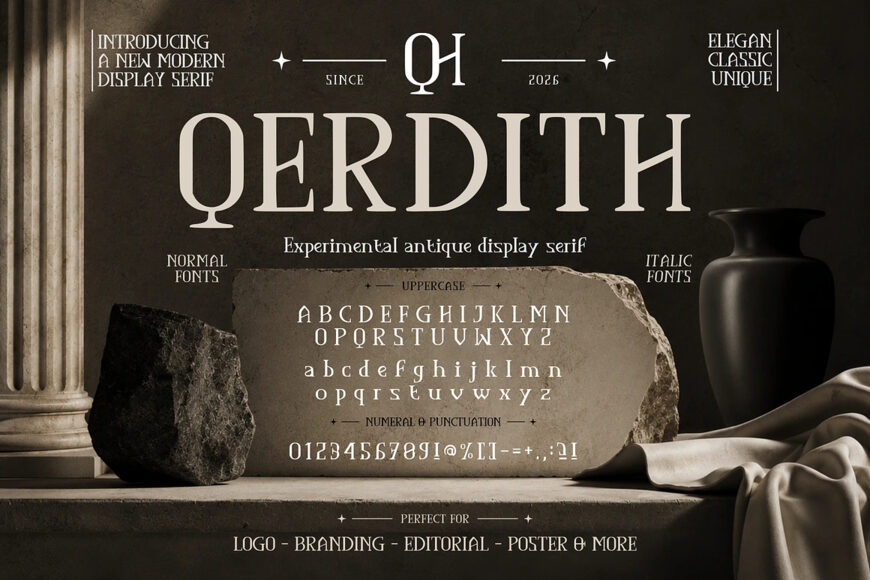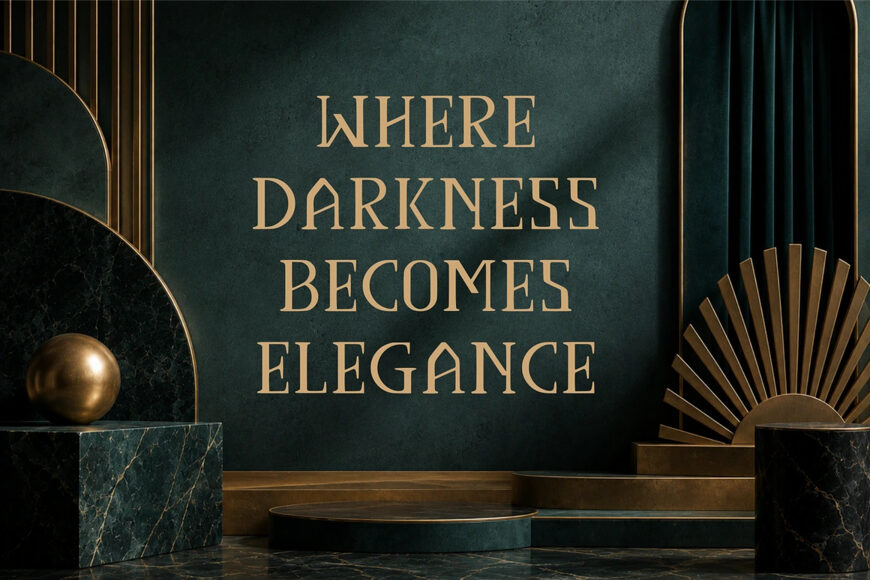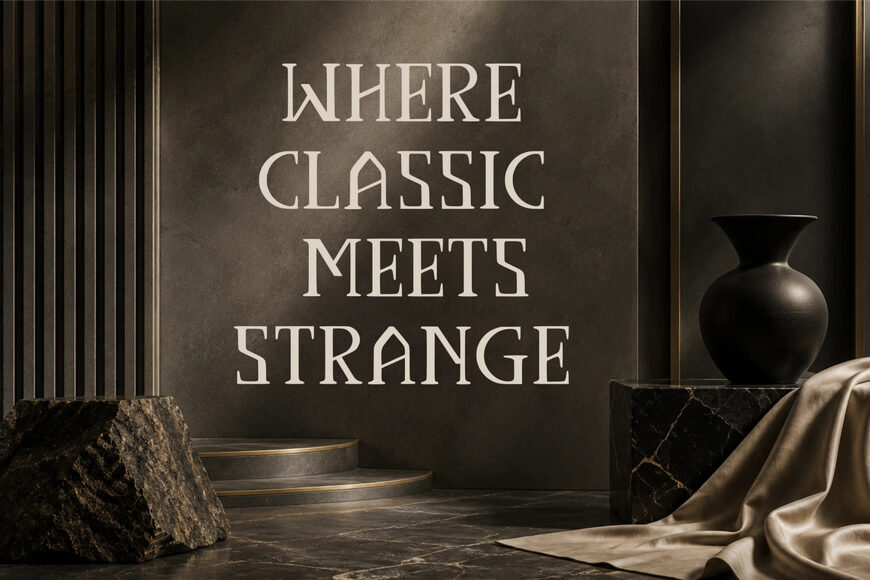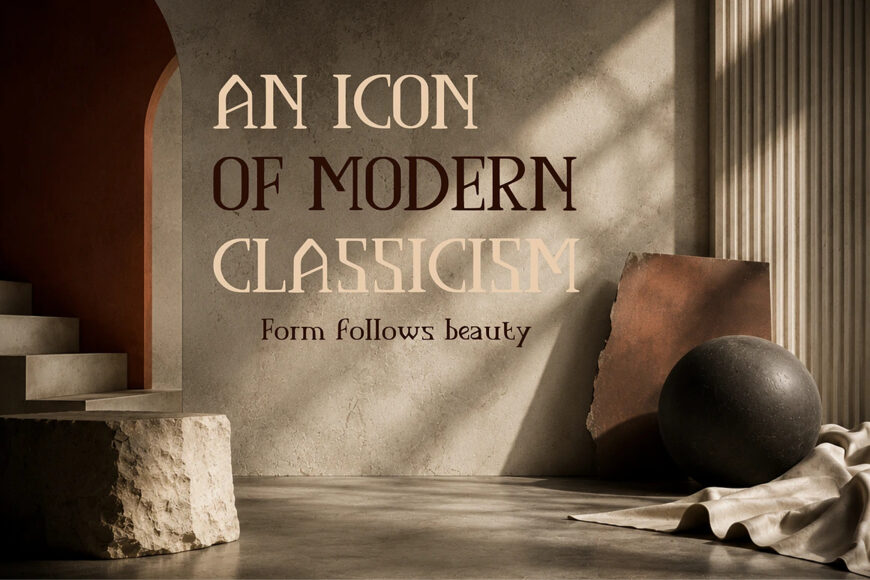
Qerdith is an experimental antique display serif typeface that blends classical elegance with a distinctive contemporary edge. Inspired by vintage typography, architectural forms, and refined editorial lettering, it features high-contrast strokes, sculptural serifs, and unusual letter details that give the typeface a sophisticated yet unconventional personality.
Designed to make a strong visual statement, Qerdith works beautifully for luxury branding, editorial layouts, fashion identities, posters, packaging, invitations, book covers, and sophisticated display typography.